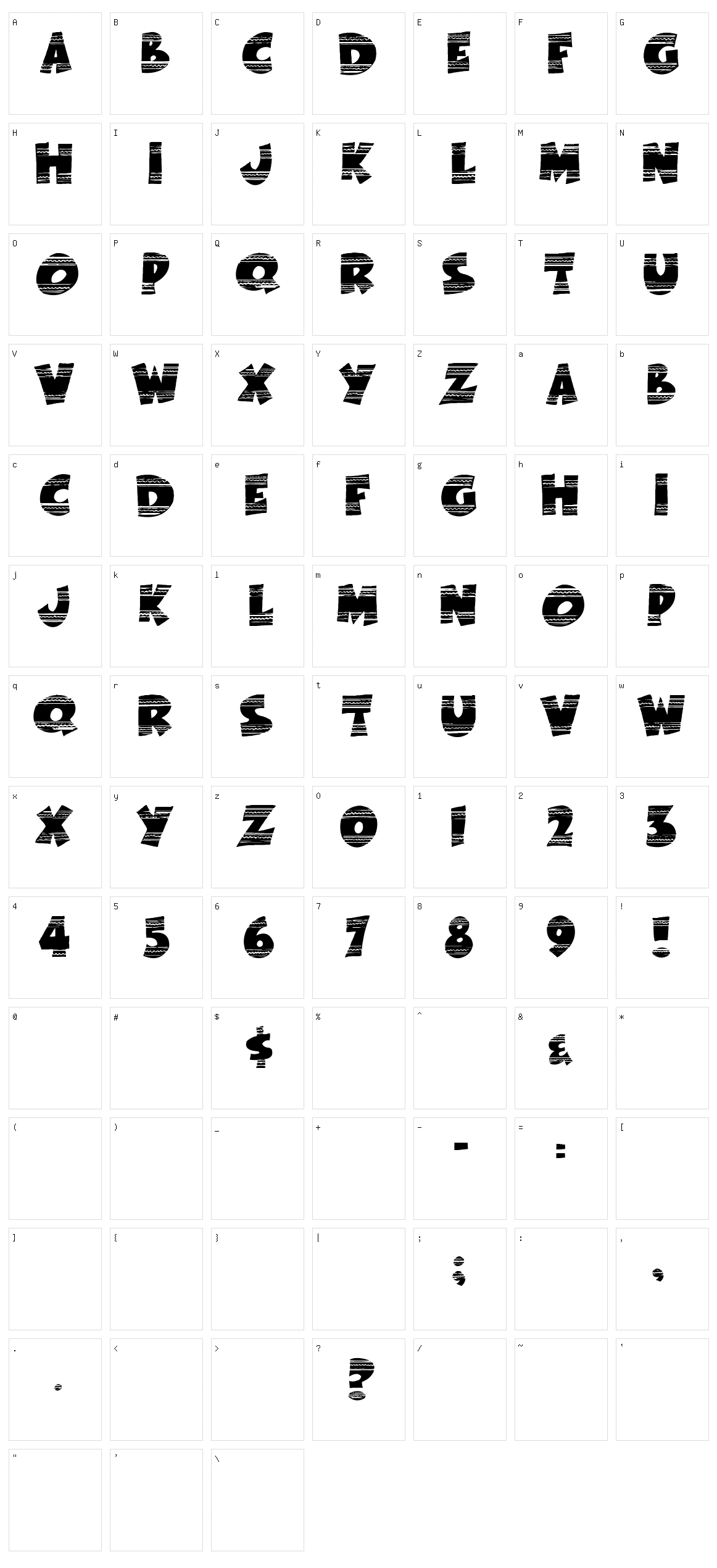
The free font Easter Fun by Tom is carefully designed by Tom Brown, showcasing a thoughtful balance of creativity and usability and falls under the Easter font style. When you download the ZIP file, it contains only 97.32 KB of font files, making it lightweight and quick to download. Please review the license details below to understand permitted usage and distribution rights. If license information is not available, we recommend using this font for personal projects only or contacting the author directly for commercial usage permissions.